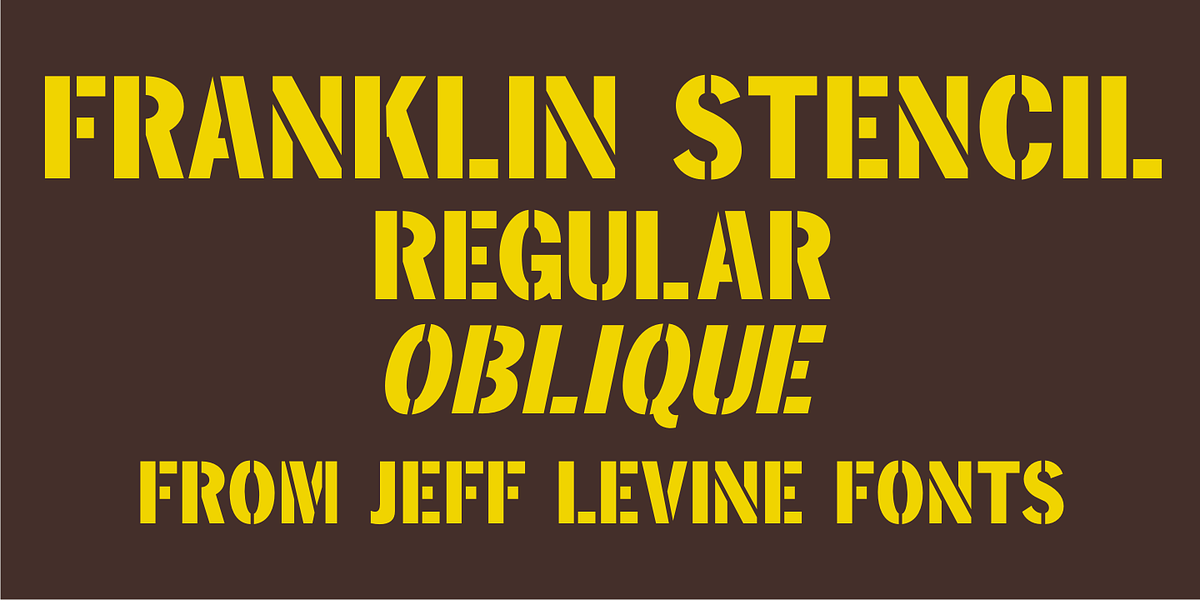
Franklin Stencil JNL
Franklin Stencil JNL is based on the classic and perennial workhorse design of Franklin Gothic Condensed and is available in both regular and oblique versions.